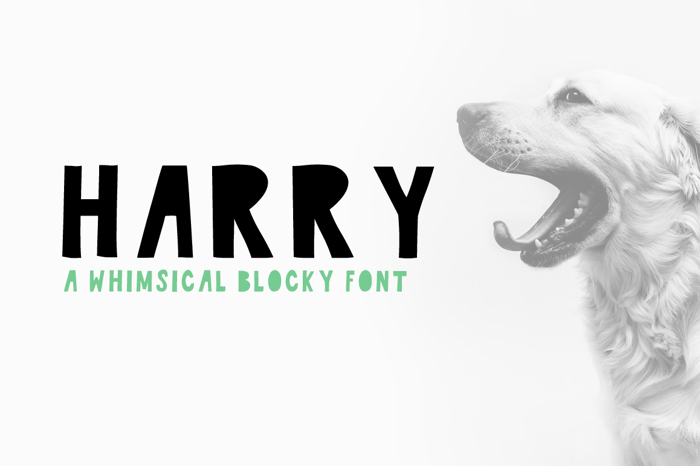
Harry Font
Harry Style
Harry Font is a whimsical block font made by Alma Gomez. It works perfectly for etsy shops, youtube videos, blogs and so much more! Endless uses. Please share your work with us by emailing us at hello@creativetwo.us or visit us at http://www.creativetwo.us/thevault